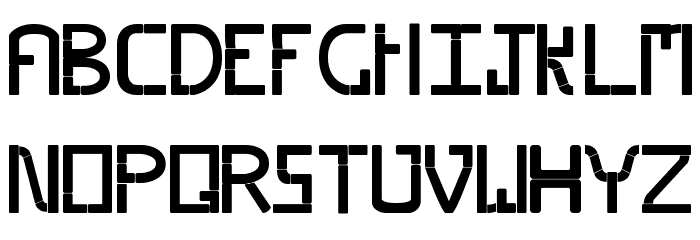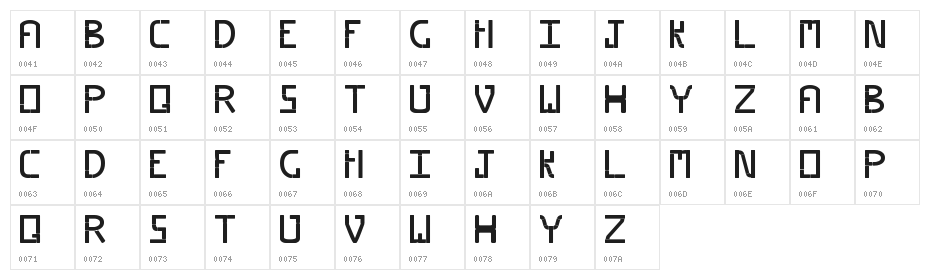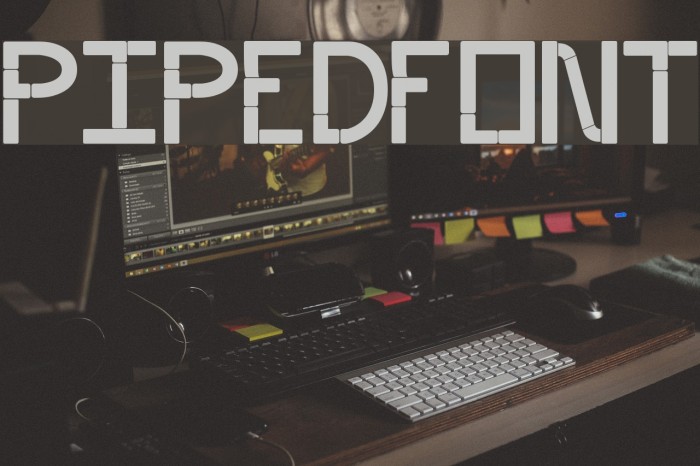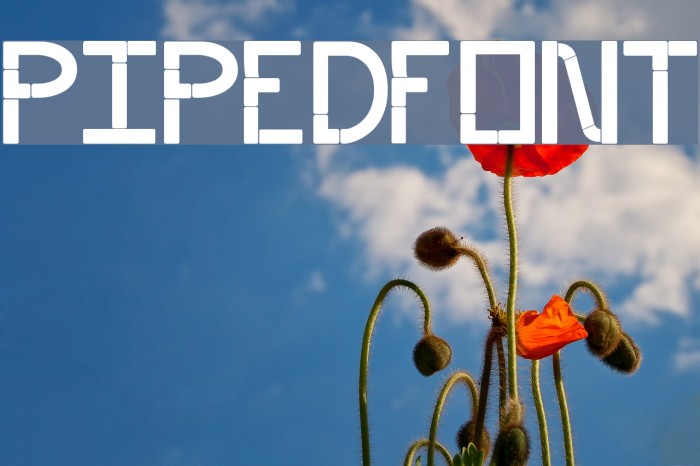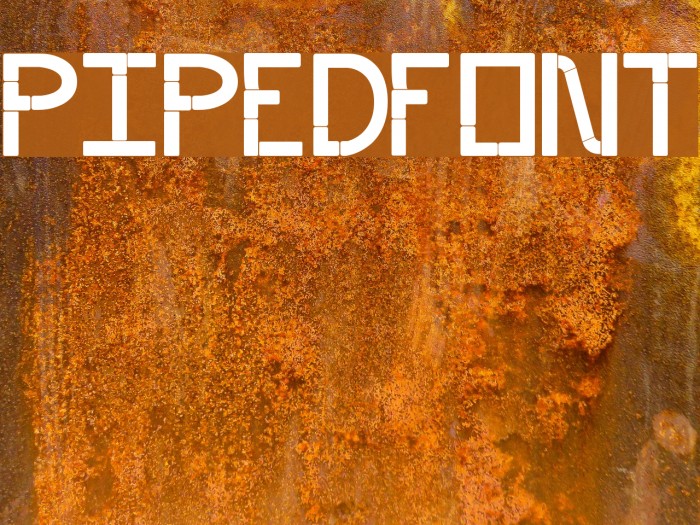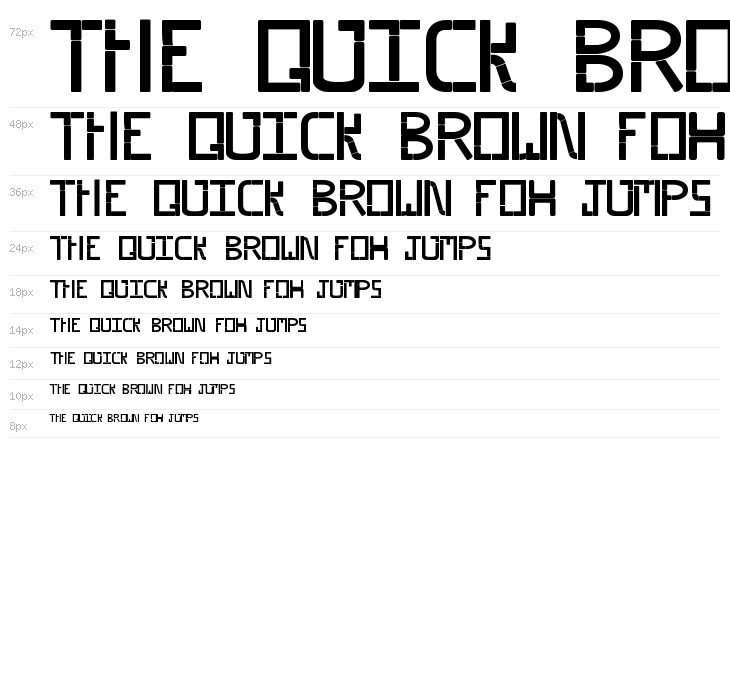
Piped Font
Piped Description
This font features a unique, geometric design with a futuristic and industrial feel. Each character is constructed with a series of straight lines and right angles, creating a mechanical appearance. The font maintains a consistent stroke width throughout, giving it a uniform and cohesive look. The characters are distinct and easily recognizable, making it suitable for attention-grabbing designs. The overall style is modern and innovative, with a hint of technological influence.
| Proposed Projects | Ideal for technology branding, sci-fi themed projects, video game titles, and modern poster designs. |